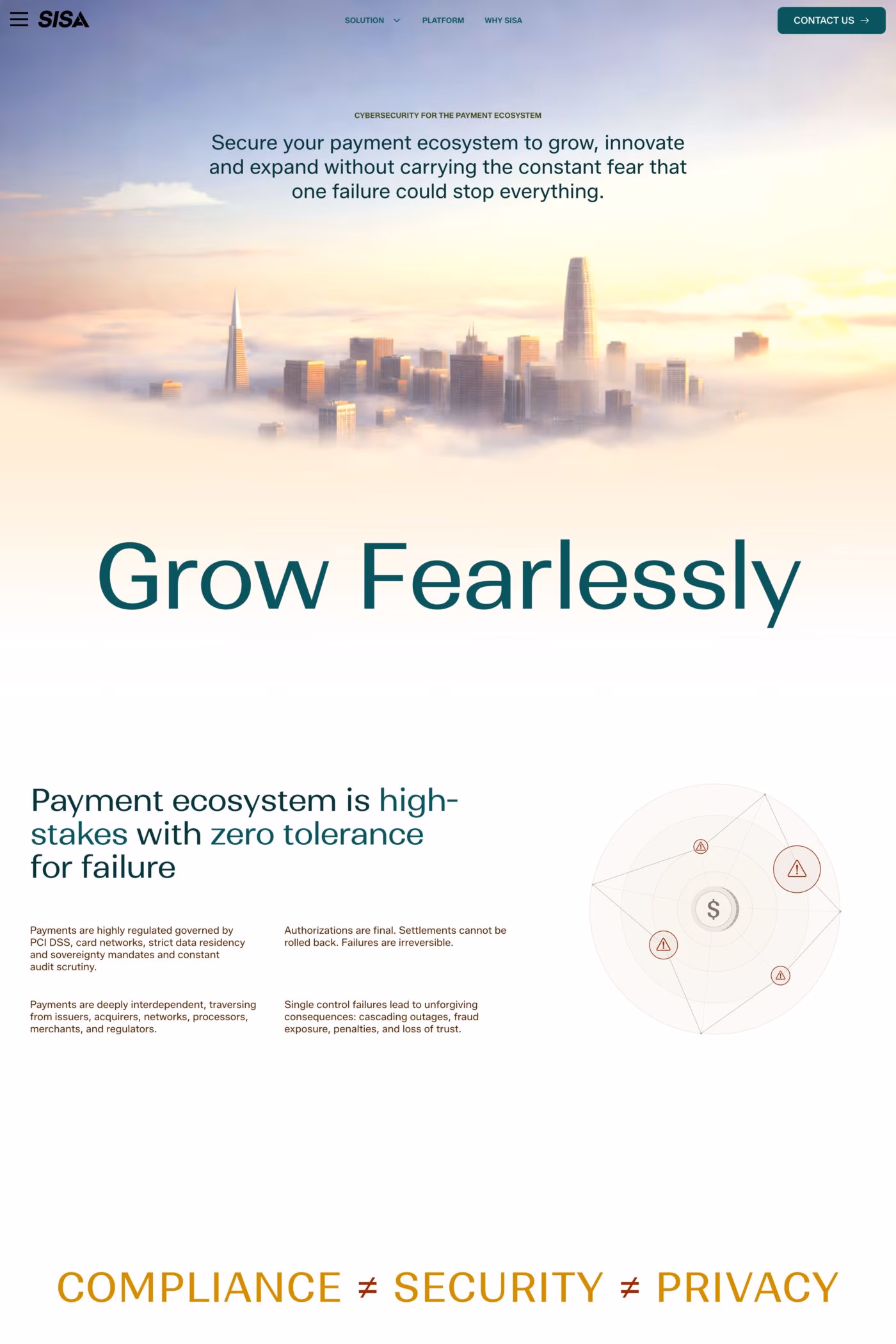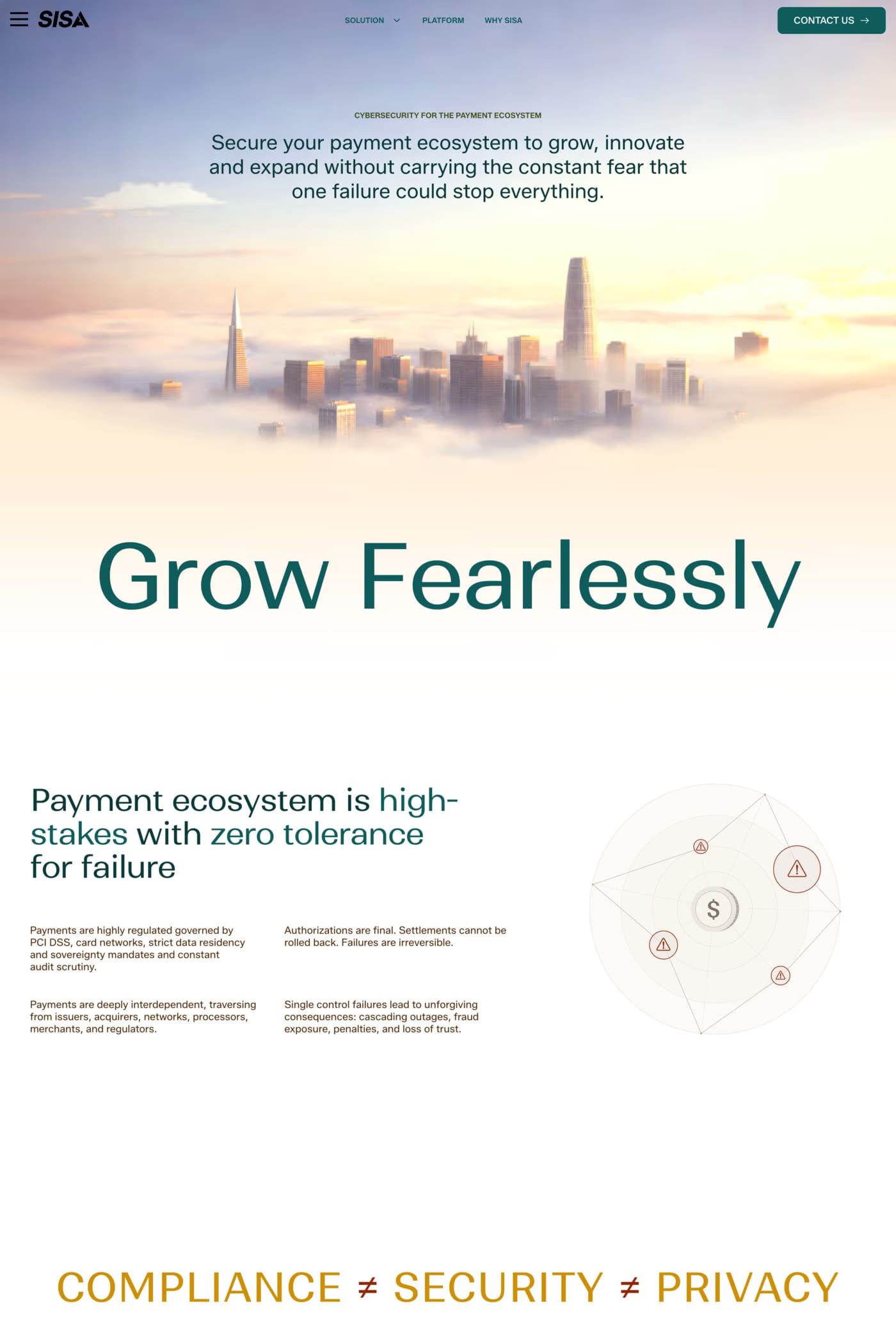
Ranade is a sans-serif typeface from Indian Type Foundry.
Ranade is a family of sans serif fonts designed in the neo-grotesk style. It also includes a little kick, separating it from other typefaces in that genre: its diagonal letters feature stark contrast.